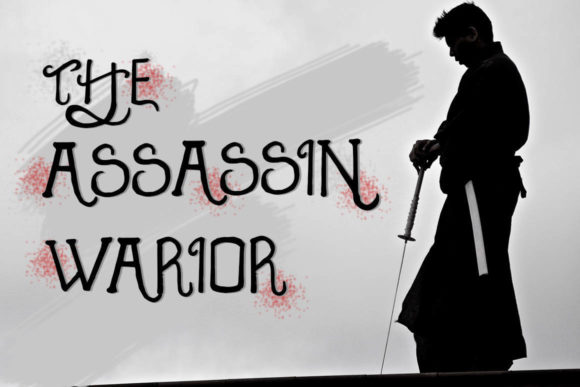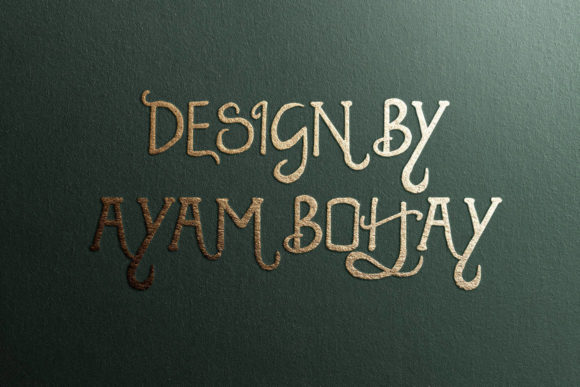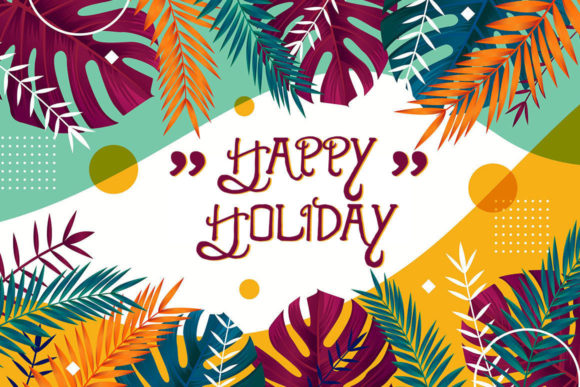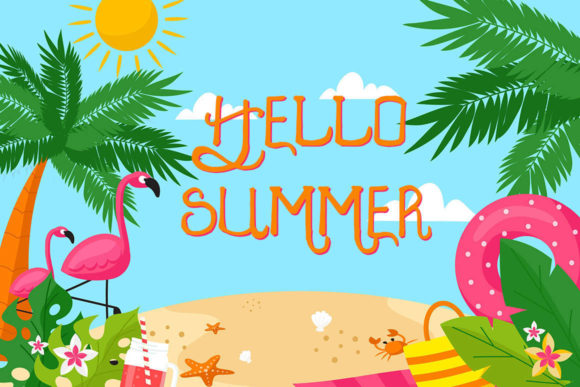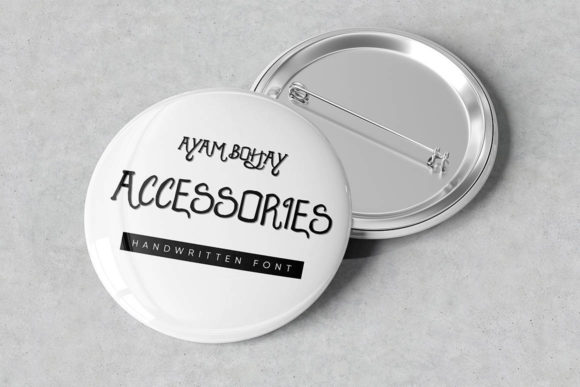
Ayam Bohay Font
About Ayam Bohay Font
Ayam Bohay is an exquisite and sophisticated handwritten font that effortlessly blends classic calligraphic influences with a modern and fresh touch. Its unique design and attention to detail make it a true favorite for a wide range of projects. Here are some creative ways to use Ayam Bohay to elevate your designs to the highest levels:
1. Wedding Invitations: Create elegant and enchanting wedding invitations that exude romance and charm with the refined beauty of Ayam Bohay.
2. Logos and Branding: Use Ayam Bohay as the centerpiece of logos and branding materials to add a touch of elegance and personality to your brand identity.
3. Greeting Cards: Design beautiful and heartfelt greeting cards for special occasions, capturing the essence of sentimentality with the graceful strokes of Ayam Bohay.
4. Quotes and Typography Art: Craft inspirational quotes and typography art that showcase the timeless and sophisticated calligraphy of Ayam Bohay.
5. Packaging Design: Apply Ayam Bohay to product packaging to add a sense of luxury and elegance, making your products stand out on the shelves.
6. Book and Magazine Covers: Use Ayam Bohay for book and magazine covers, creating a sense of allure and sophistication that captivates readers.
7. Social Media Graphics: Create eye-catching social media graphics with Ayam Bohay, engaging your audience with its refined and classy aesthetics.
8. Personal Stationery: Customize your personal stationery with Ayam Bohay, adding a touch of elegance and sophistication to your correspondence.
9. Event Invitations: Design sophisticated event invitations for exclusive parties, galas, and corporate events, setting the tone for an upscale affair.
10. Website Headers: Implement Ayam Bohay in website headers and banners to add a touch of elegance and uniqueness to your online presence.
11. Signage and Display: Use Ayam Bohay for elegant signage and displays, creating a refined and welcoming atmosphere.
12. Fine Art Prints: Create fine art prints with Ayam Bohay, showcasing the beauty of calligraphy in a contemporary and artistic form.
13. Certificates and Awards: Design certificates and awards with Ayam Bohay, adding a touch of sophistication and prestige to recognition.
14. Restaurant Menus: Apply Ayam Bohay to restaurant menus, elevating the dining experience with its graceful and refined aesthetics.
15. Fashion Branding: Use Ayam Bohay in fashion branding to add a touch of elegance and style to your designs.
With its exquisite and contemporary design, Ayam Bohay is a font that will elevate your projects to new heights. Its seamless blend of classic calligraphy and modern influences makes it a versatile and captivating choice for various design styles. Whether used for personal or professional projects, Ayam Bohay is sure to leave a lasting impression and bring a touch of sophistication to your creations. Embrace the beauty of calligraphy and fall in love with Ayam Bohay as it becomes an essential element in your design arsenal, taking your projects to the next level of elegance and refinement.